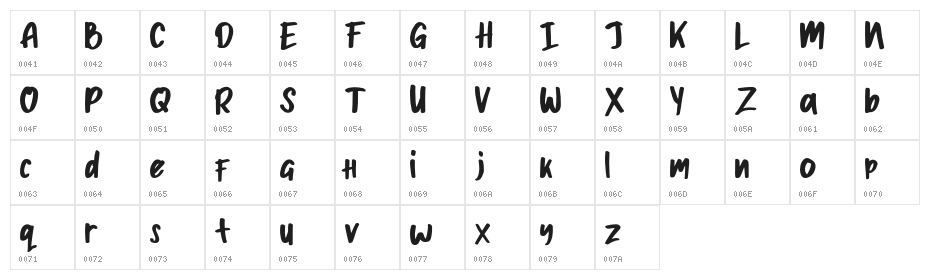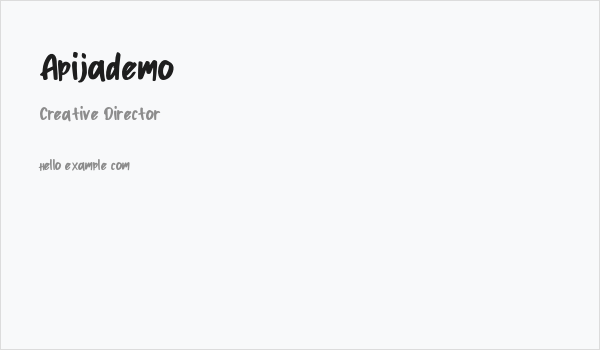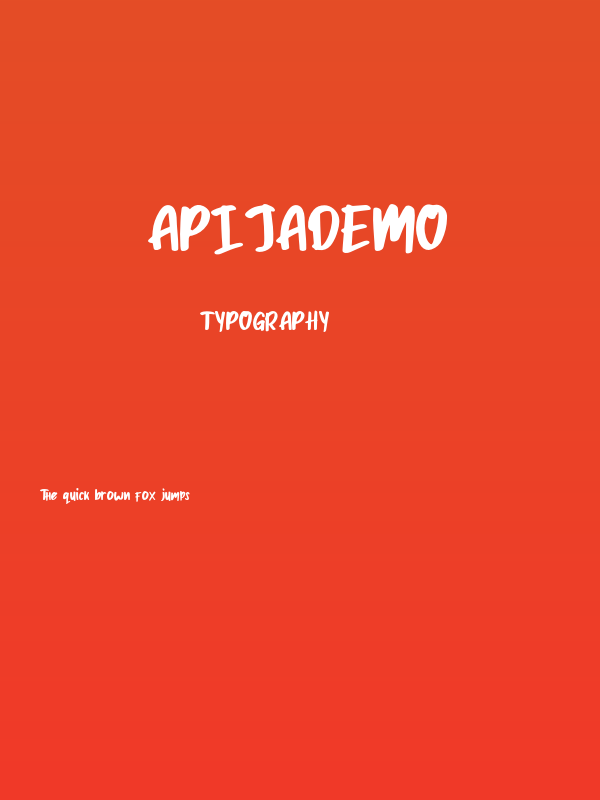
Apijademo Font
Apijademo Description
This font features a bold, handwritten style with a playful and energetic appearance. The letters are slightly irregular, giving it a casual and informal feel. The strokes are thick and consistent, providing a strong visual impact. The uppercase and lowercase letters maintain a cohesive style, with rounded edges and a slight slant that adds to its dynamic look. This font is well-suited for projects that require a personal touch or a sense of spontaneity.
Overall StyleCasual and playful
Use CaseHeadlines, Logos, Social media graphics
Proposed ProjectsIdeal for greeting cards, posters, social media graphics, and branding projects that require a personal and informal touch.